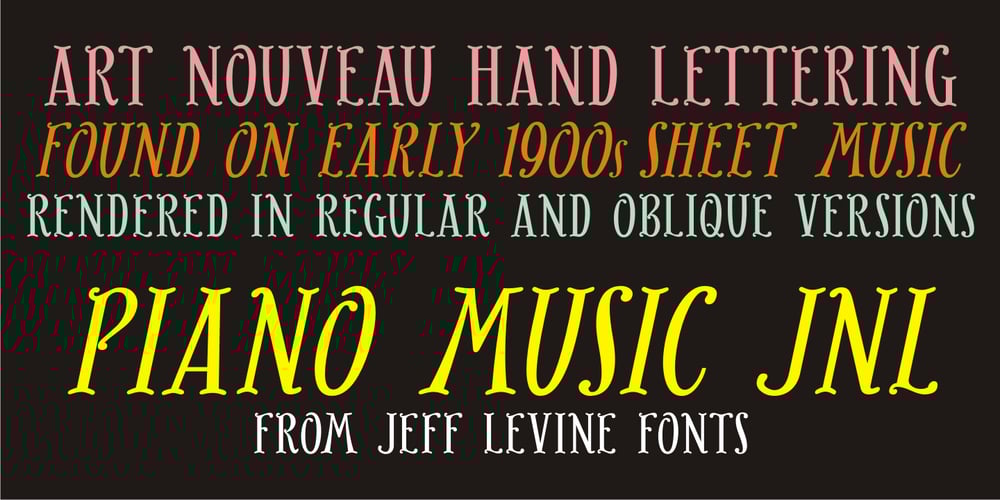
Piano Music JNL Font Family was designed by Jeff Levine and published by Jeff Levine. Piano Music JNL contains 2 styles and family package options. A 1910 collection of piano sheet music called “Presser’s Economy Group” had that name hand lettered in a fancy serif lettering style that could fall somewhere between Art Nouveau and semi-calligraphic. No matter the label you attach to the style, it makes for a wonderful digital type revival. The end result is Piano Music JNL, which is available in both regular and oblique versions.